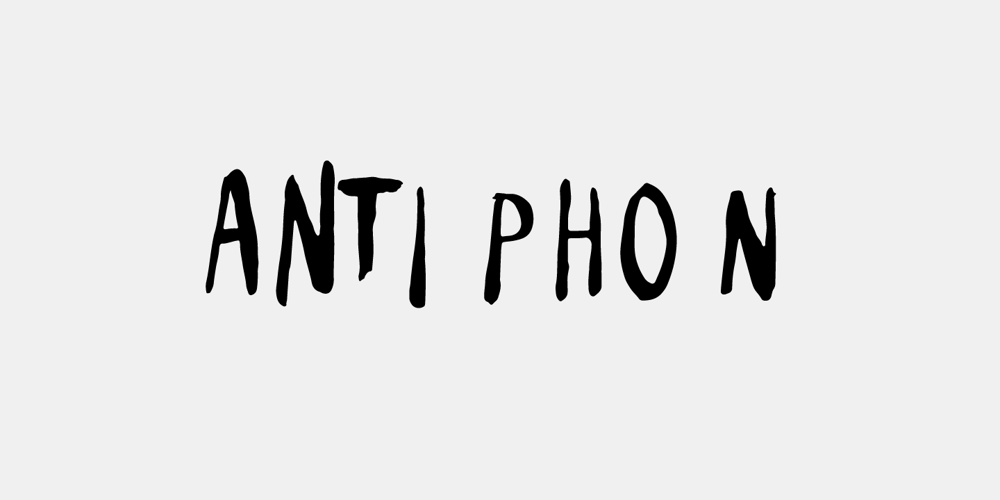
Antiphon Font Family was designed by Andreas Brunelius and published by Gustav & Brun. Antiphon contains 1 styles and family package options. Created to illustrate the frustration of a punk band, the fear of a gigantic Blob in a small Michigan town, Kurt Vile, the scariness of a totally awesome party, your local band at your local pub, the awkwardness of Satan, your voice and some other super rough stuff. All caps. At Least every common letter x 2.